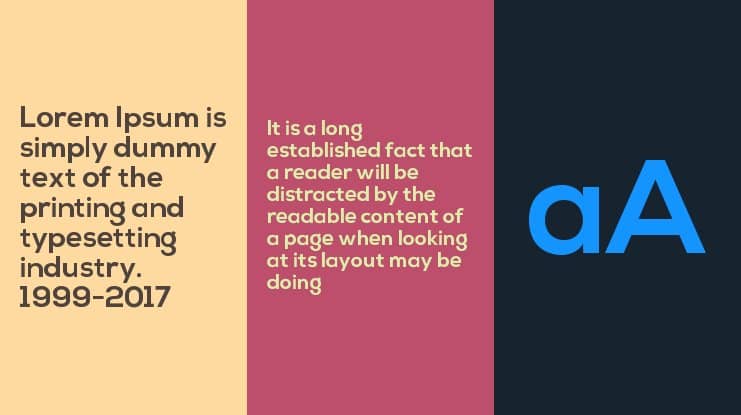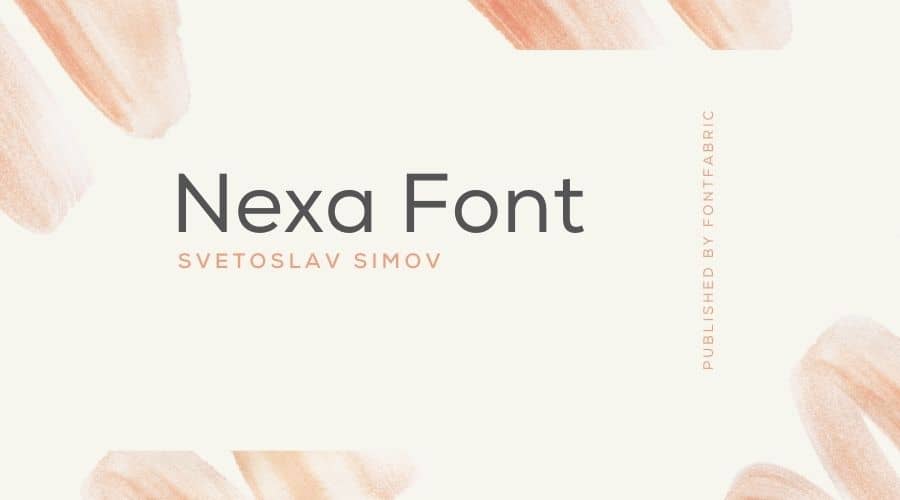
Nexa is a Sans-Serif typeface font designed by Svetoslav Simov and published by Fontfabric Type Foundry in 2012. With 232 varieties of personalities and nine weights, Nexa is a unique and elegant typeface. In the free variation of Nexa font, you will find Nexa Vibrant Font, Nexa Light Font, Nexa Text Bold, Nexa Text Light. Nexa Font Familly appropriates for the headline, all dimensions, message blocks, web & print design areas, etc. The complete use information is given listed below.
As the font has nine weights and an eye-catchy typeface, it benefits virtually every section you need.
Designing Work: Nexa font is compatible with every developing job. This font is likewise helpful for cards, leaflets, newspapers (online/offline), discussions, web pages, blogs, book covers, social media sites messages, advertisements, item designs, posters, and many more.
Official job or Documents: The font looks to use in the main job and documents.
Logos: You can design your logos with it.
Nexa Font Family is a versatile and well-designed font suitable for a wide range of graphic design projects. With a wide variety of weights and many types of fonts, the Nexa Font Family offers excellent legibility and readability. It is suitable for headings of all sizes and text blocks of both maximum and minimum width and height. Improved Extended Latin and Cyrillic language localization are included in the iconic glyph map. You can check this font for free from out font generator below! You can also buy this font by clicking our link below.